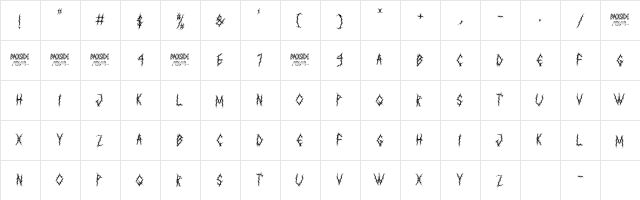
BACKSIDE Regular Free Font
BACKSIDE Regular
Design Context for BACKSIDE
BACKSIDE is a composed and adaptable typeface that performs quietly and consistently across a wide range of design contexts.
Pro Tip: Use BACKSIDE in both headline and body roles to test its range before committing to a single application.